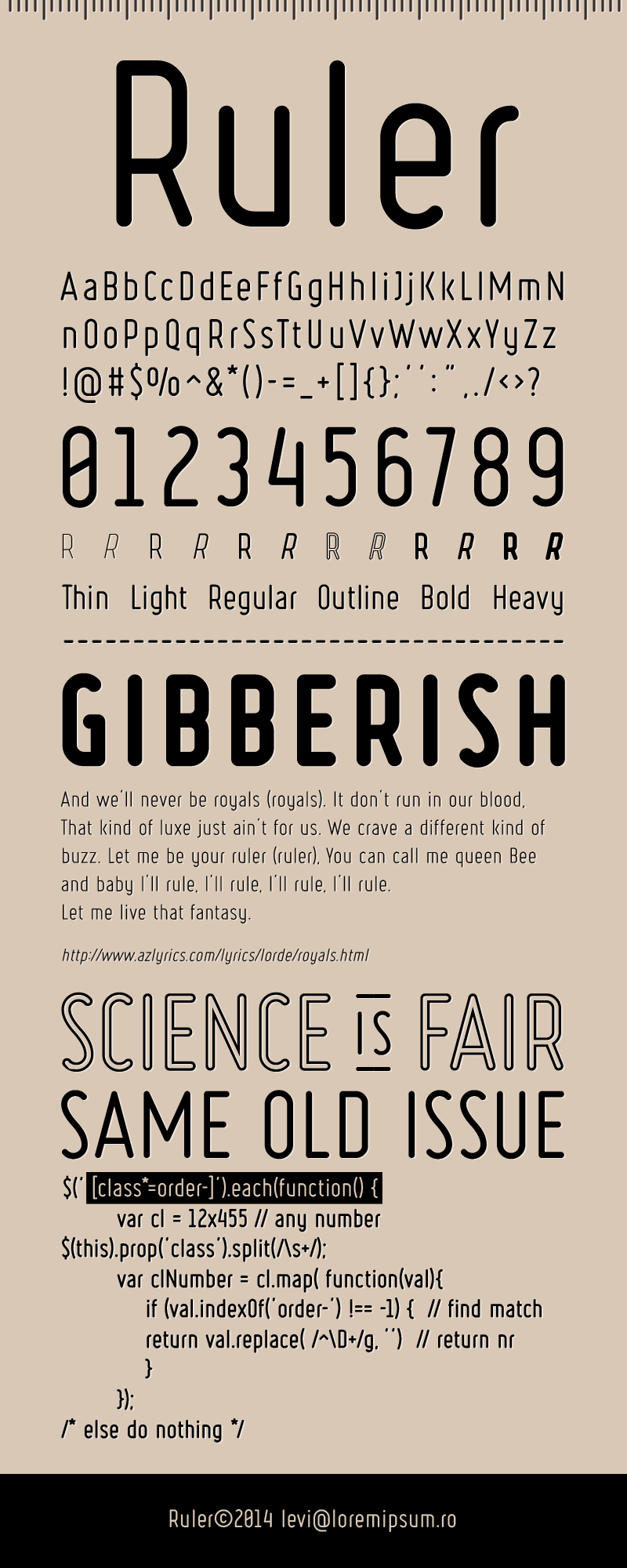
Font name: | Ruler |
Author: | Levi Szekeres |
Note by Levi Szekeres | |
Font created for longer paragraphs and smaller texts, but works well also on headlines. A mix between a condensed Gothic and a typewriter, inspired by the technical fonts you find on charts, this font has a personal twist for style. For commercial use contact me. Thank you, Levi |